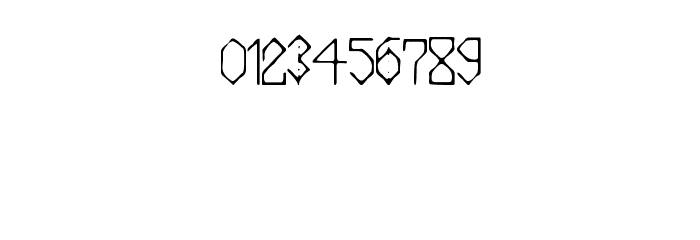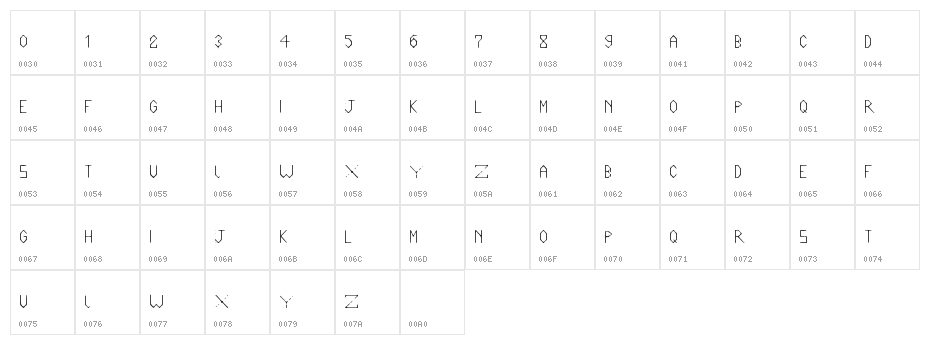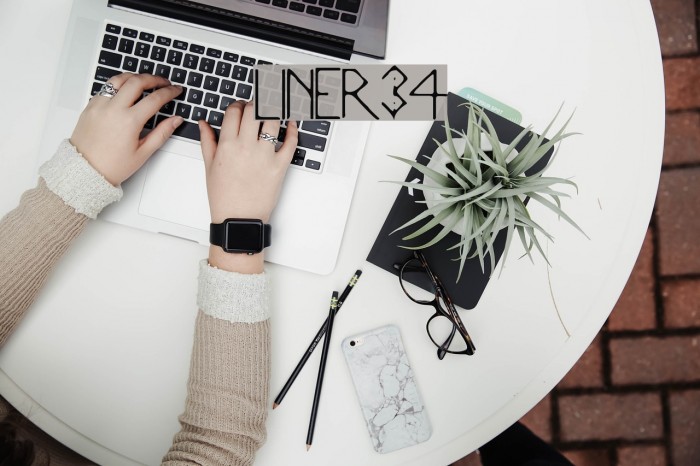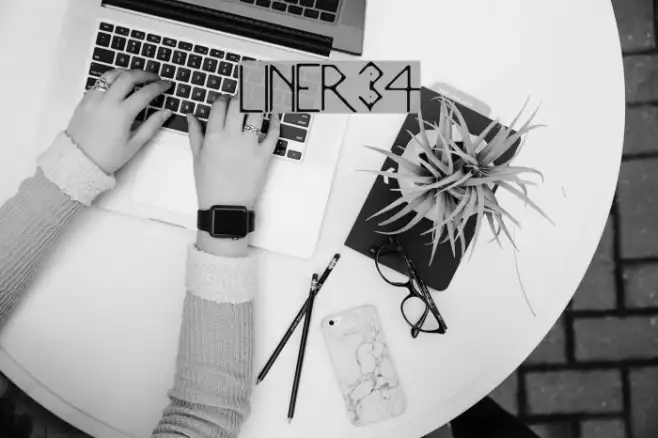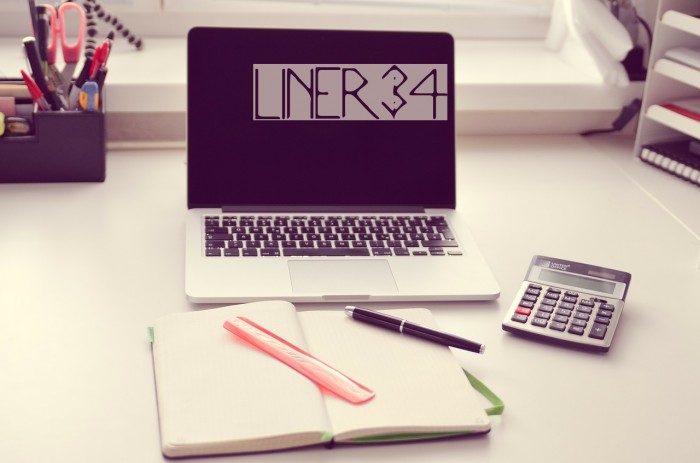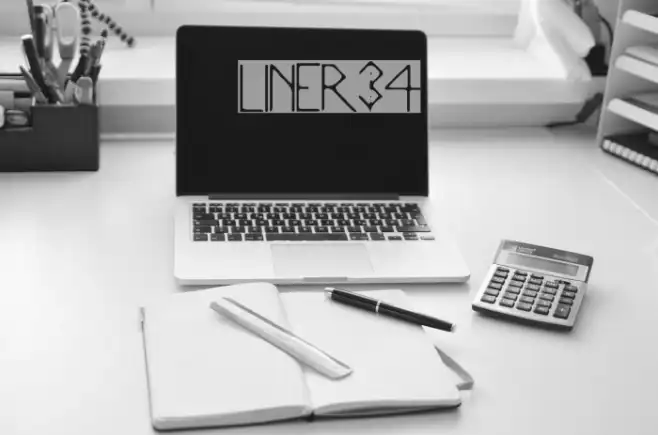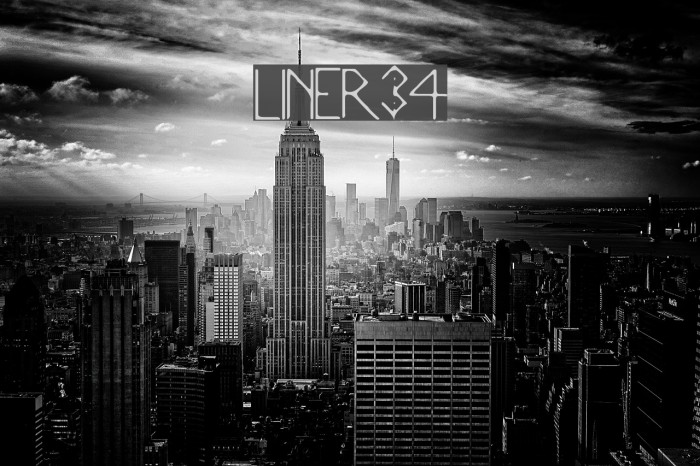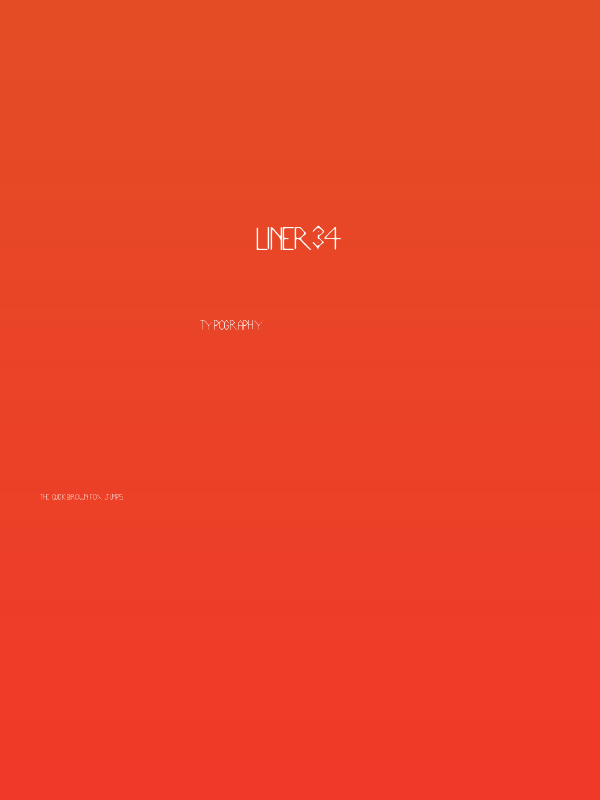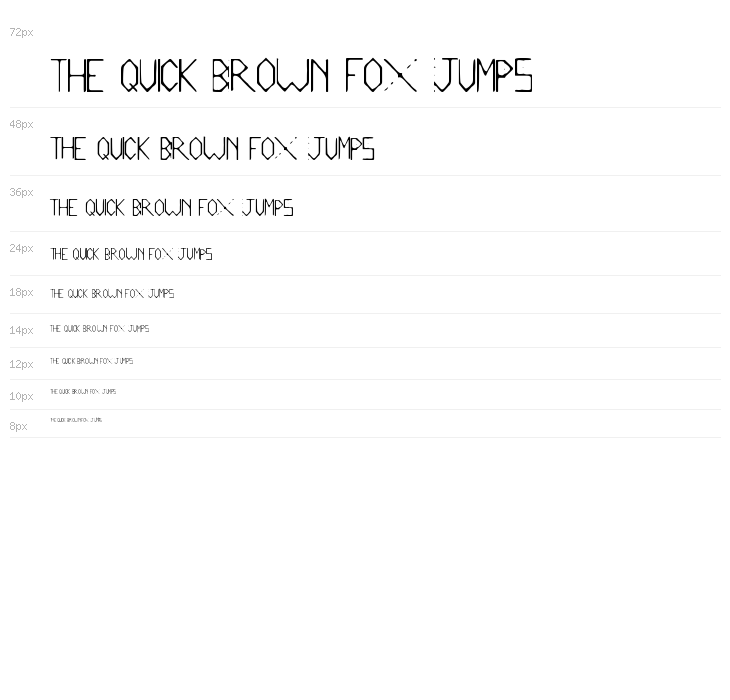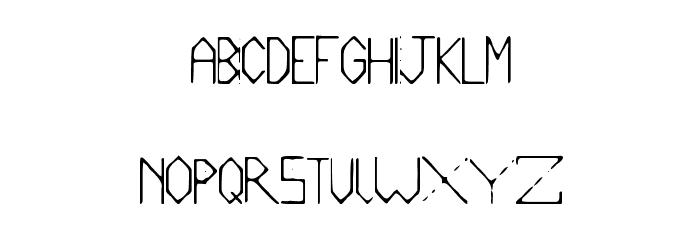
Liner34 Font
Liner34 Description
This font features a unique, geometric design with a futuristic and technical appearance. Each character is constructed with a series of straight lines and angles, giving it a mechanical and structured look. The uppercase and lowercase letters maintain a consistent style, with sharp edges and a minimalistic approach. The numerals and special characters follow the same design principles, ensuring uniformity across the typeface. This font's distinct style makes it stand out, ideal for projects that require a modern and innovative touch.
| Proposed Projects | Ideal for technology branding, modern posters, sci-fi book covers, and digital interfaces. |